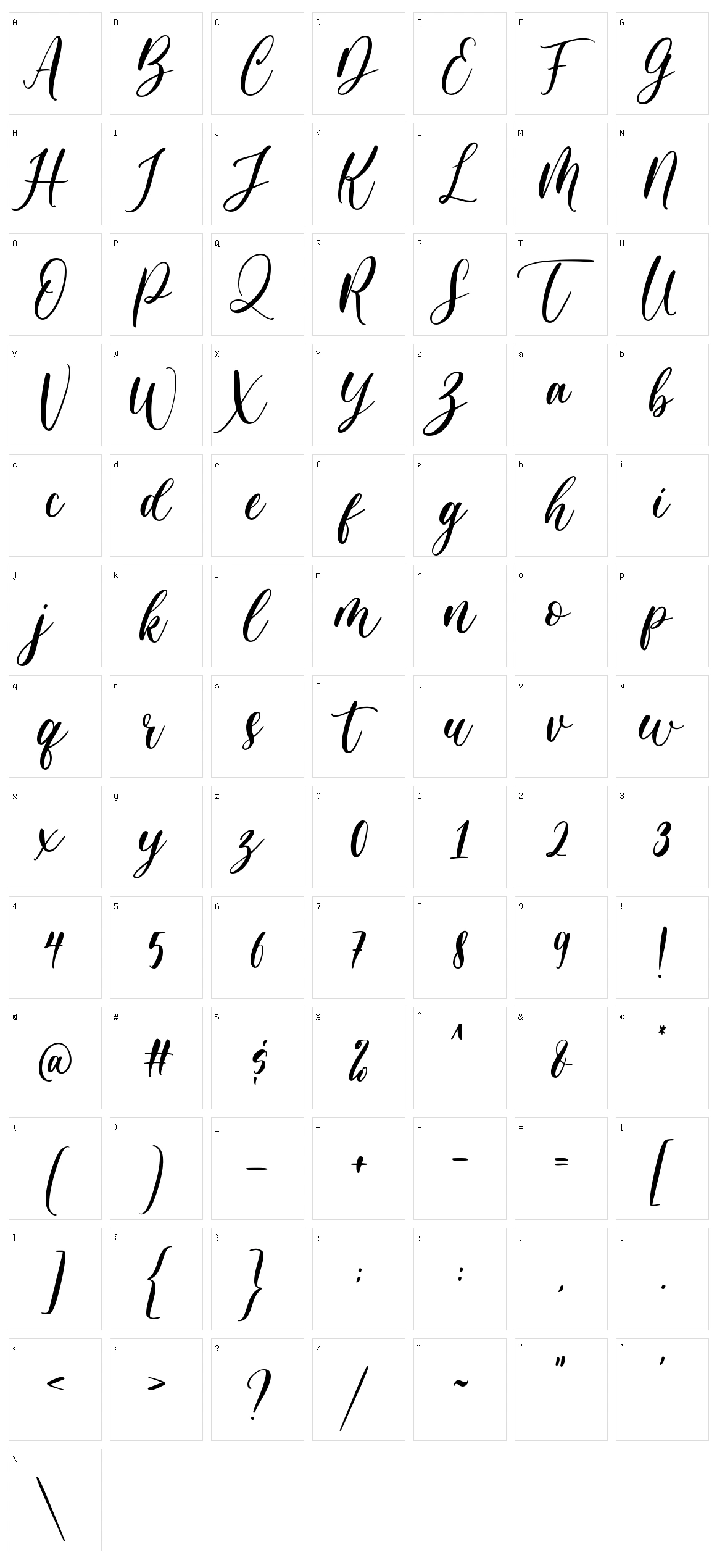
The free font Pretty Smile is carefully designed by sronstudio, showcasing a thoughtful balance of creativity and usability and falls under the Script font style. When you download the ZIP file, it contains only 39.99 KB of font files, making it lightweight and quick to download. Please review the license details below to understand permitted usage and distribution rights. If license information is not available, we recommend using this font for personal projects only or contacting the author directly for commercial usage permissions.